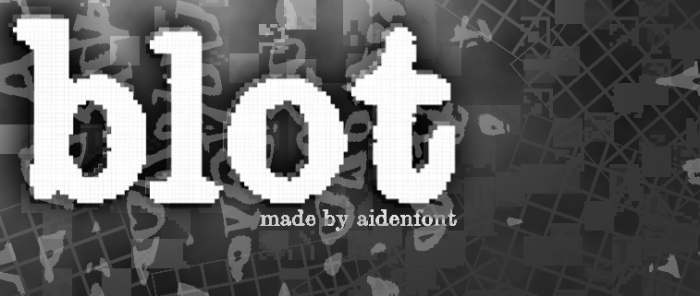
@AidenFont - This is a very involved pixel font, and I like your progress.  I'd consider adding a "Typewriter" tag.  Are you using a template for the base letters, or is there some other inspiration?
Most of the lowercase letters are pixelized (and edited) versions of letters from the "conf" files of this font called "Gensco" with some added extras.